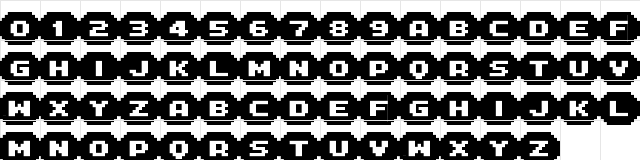
FFF Interface08b Regular
Design Context for FFF Interface08b Typeface
FFF Interface08b takes a measured approach to typography — its balanced proportions and neutral character make it a reliable workhorse for both digital and print work.